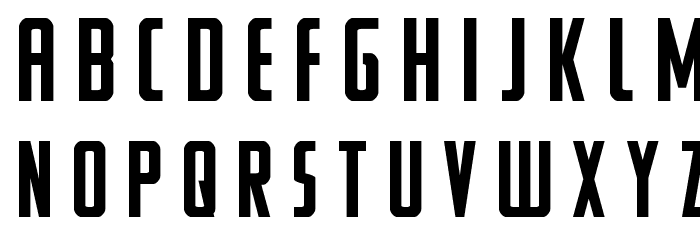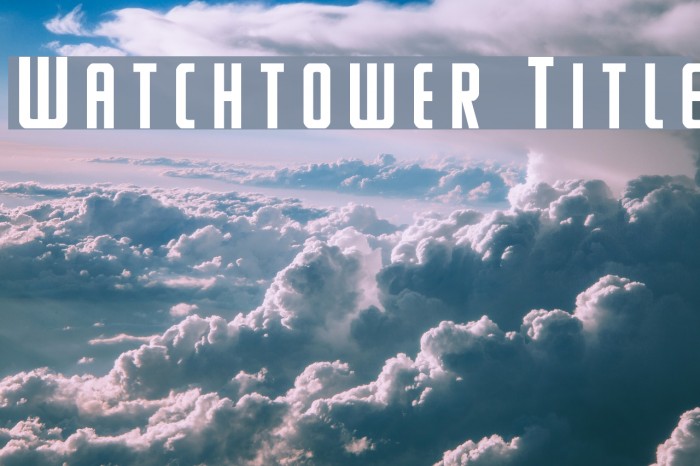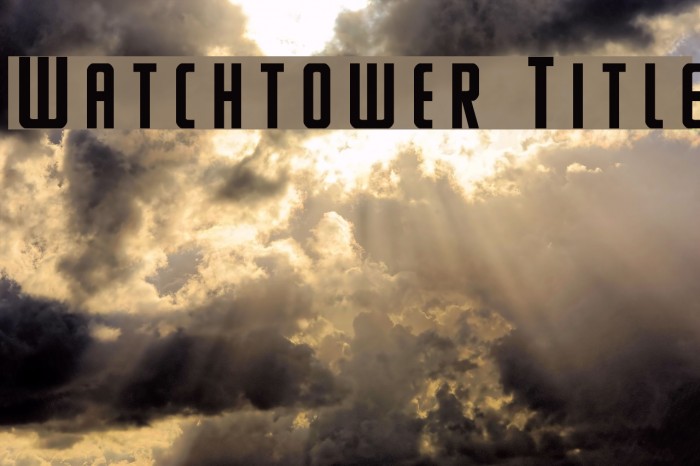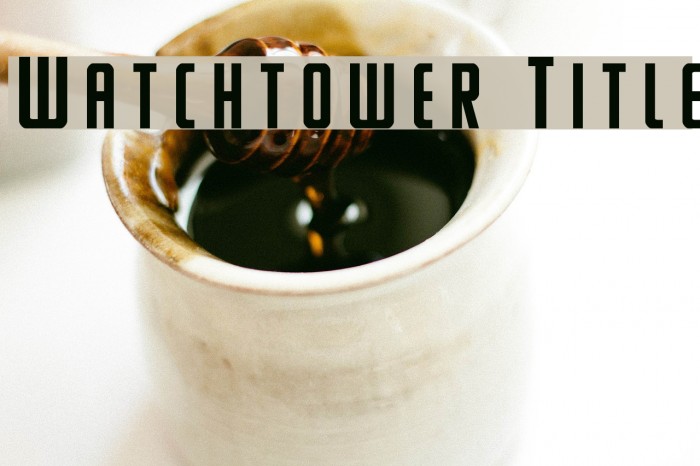
Watchtower Title Font
This font features a bold, geometric design with a strong presence. The characters are tall and narrow, with a consistent stroke width that gives them a modern and structured appearance. The uppercase letters are particularly striking, with sharp angles and clean lines that convey a sense of authority and precision. The lowercase letters maintain the same geometric style, ensuring uniformity across the typeface. Numbers and special characters are crafted with the same attention to detail, making them easily legible and visually appealing. The overall design is both functional and stylish, suitable for a variety of applications where a bold statement is needed.
A bold, geometric font with a modern and structured design.